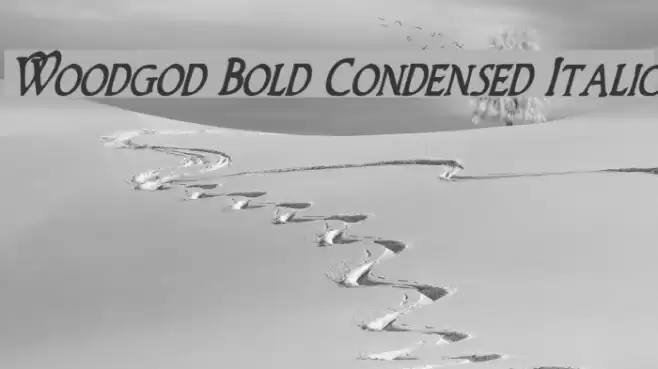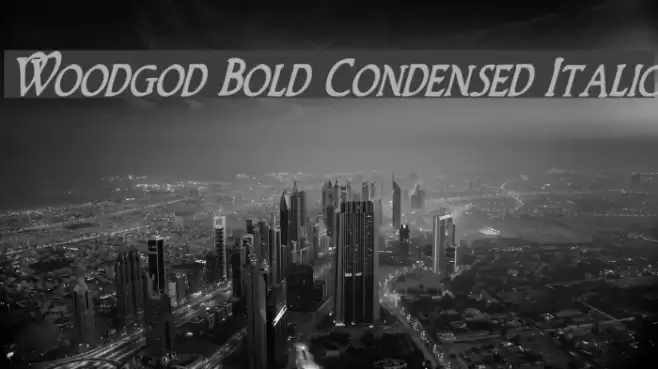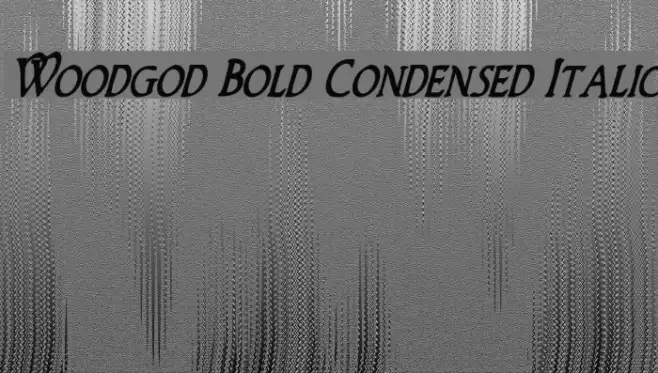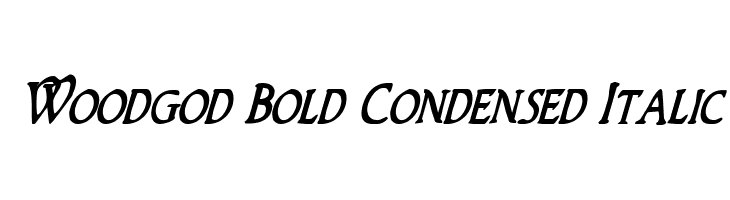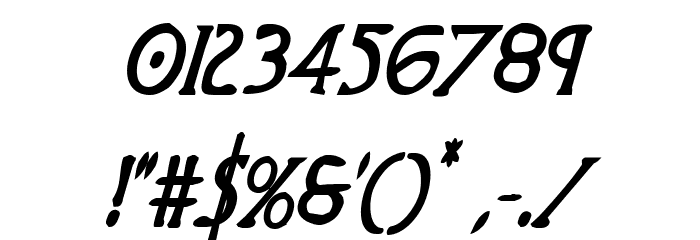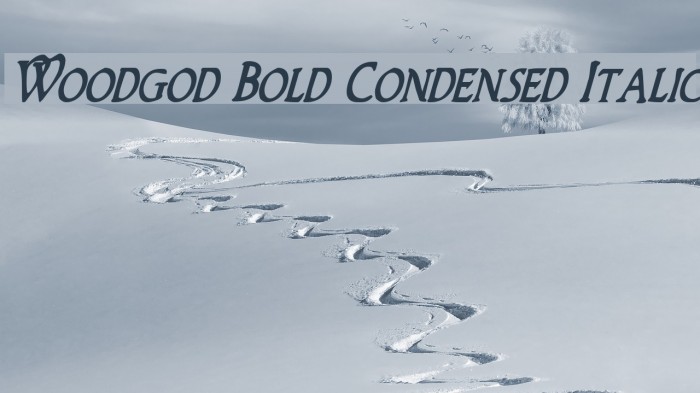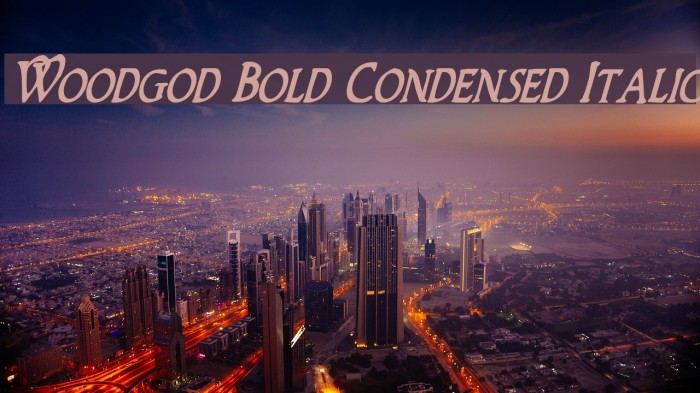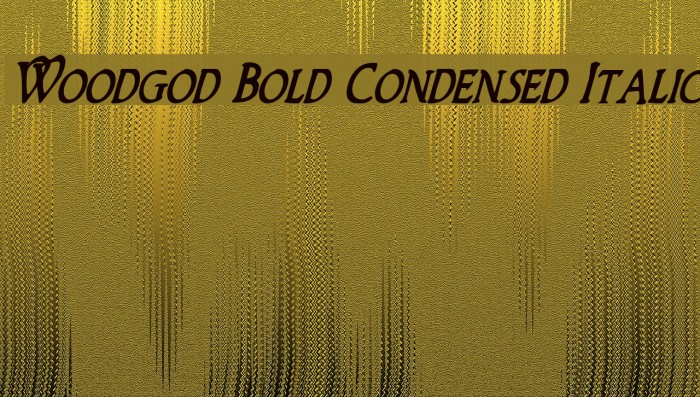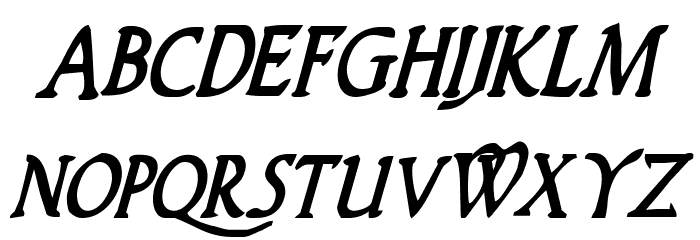
Woodgod Bold Condensed Italic Font
Woodgod Bold Condensed Italic Description
This font features a bold and condensed style with an italic slant, giving it a dynamic and energetic appearance. The characters are tightly spaced, enhancing its compact look. The strokes are thick, providing a strong visual impact, while the italic angle adds a sense of motion and fluidity. The uppercase and lowercase letters maintain a consistent style, with some characters exhibiting unique flourishes, particularly in the uppercase 'Q' and 'R'. The numerals are clear and bold, matching the overall aesthetic. Special characters are well-integrated, maintaining the font's cohesive design.
A bold, condensed, and italic font with dynamic strokes and tight spacing from Uncategorized fonts.
- Proposed Projects: Ideal for branding, posters, and headlines where a strong, impactful presence is needed.
- Character Spacing: Tight
- Overall Style: Dynamic and Energetic